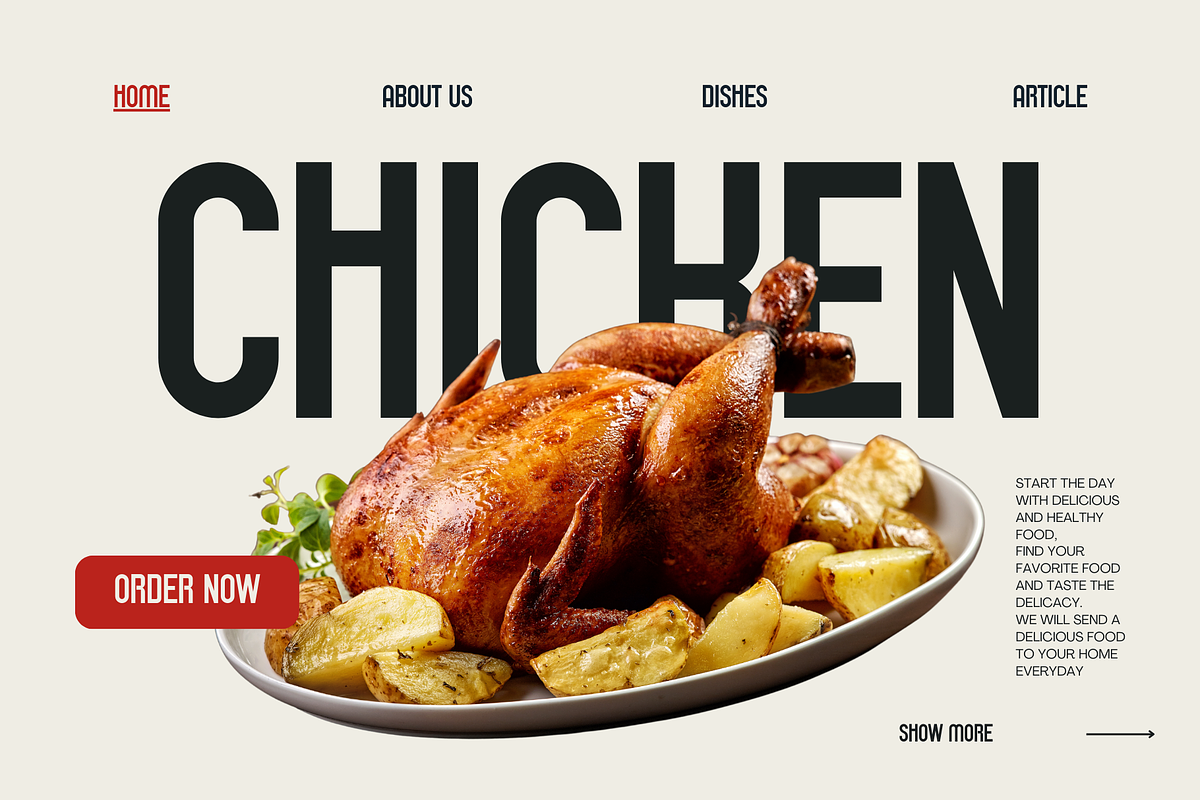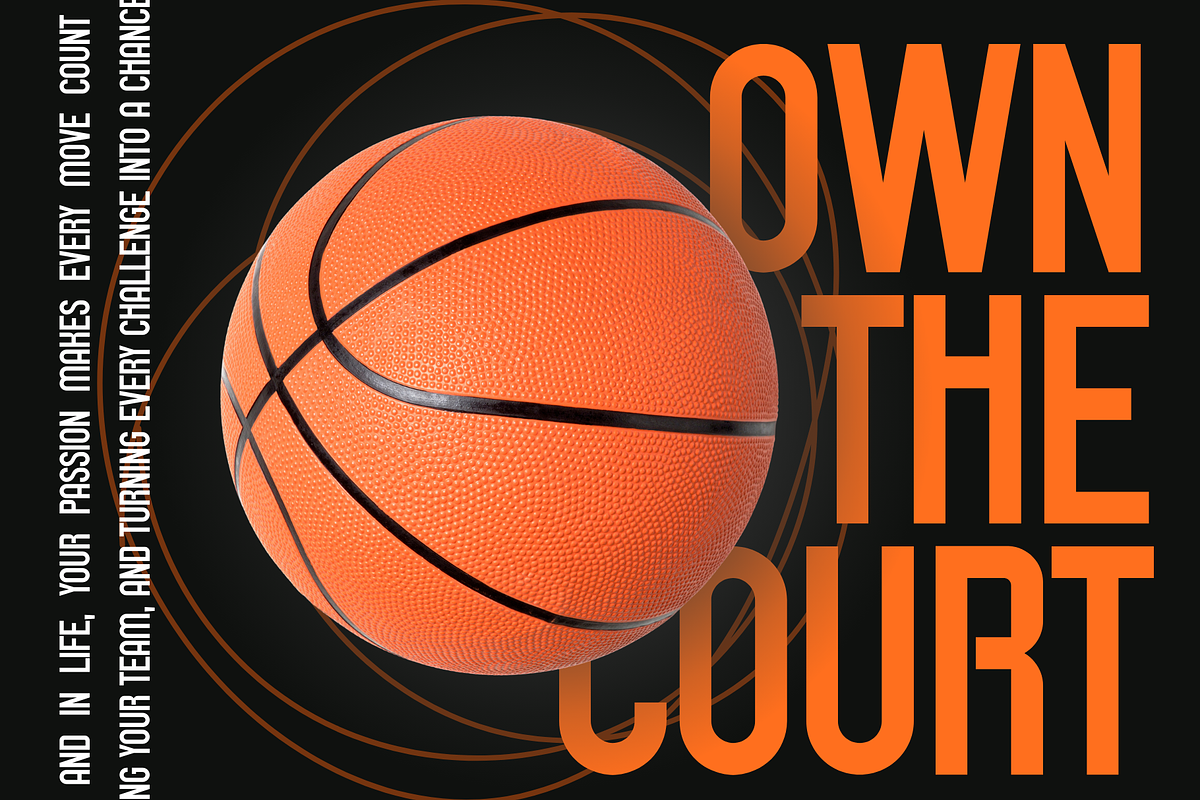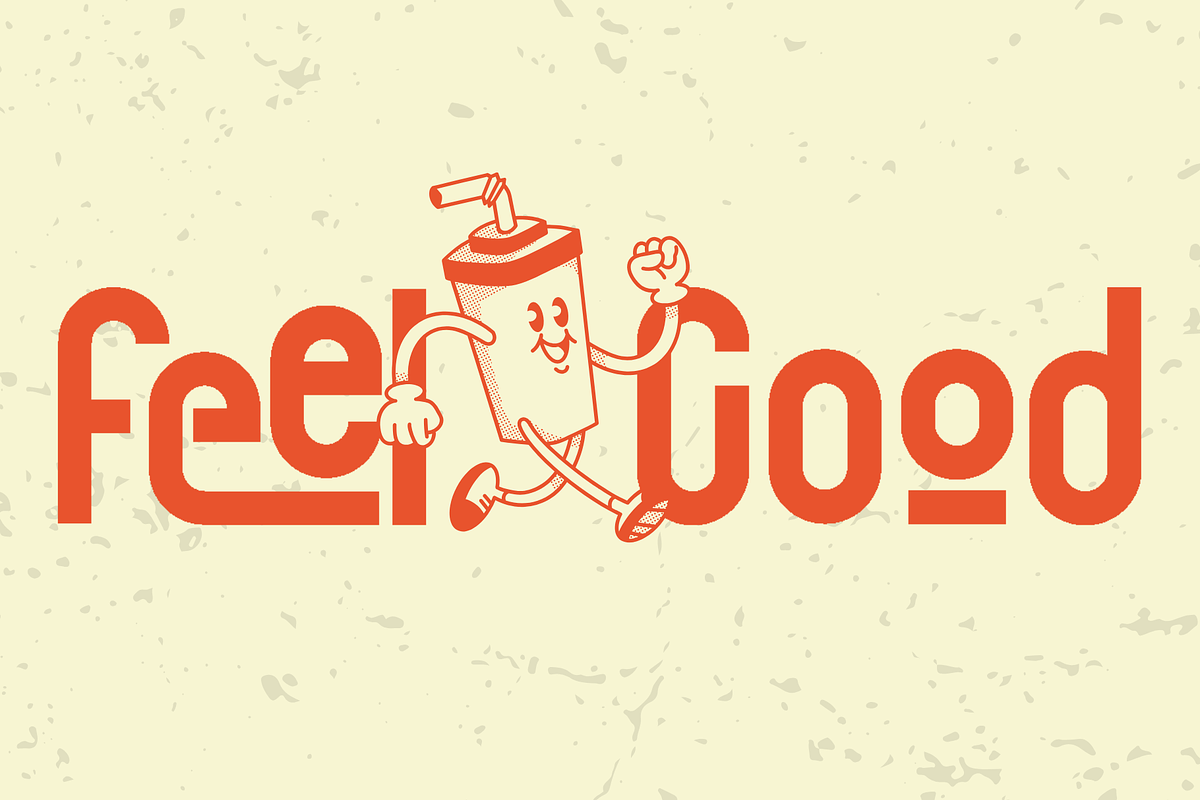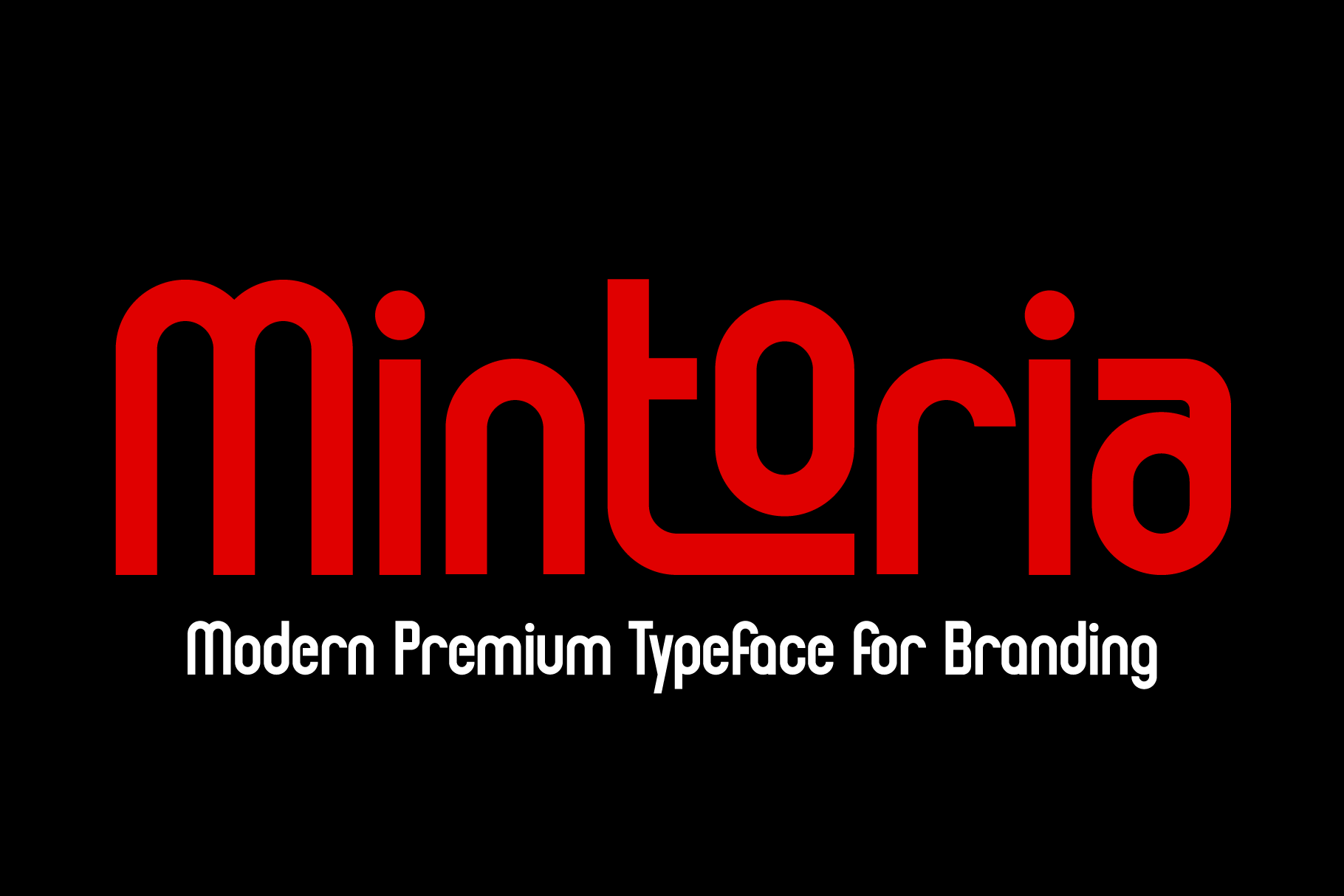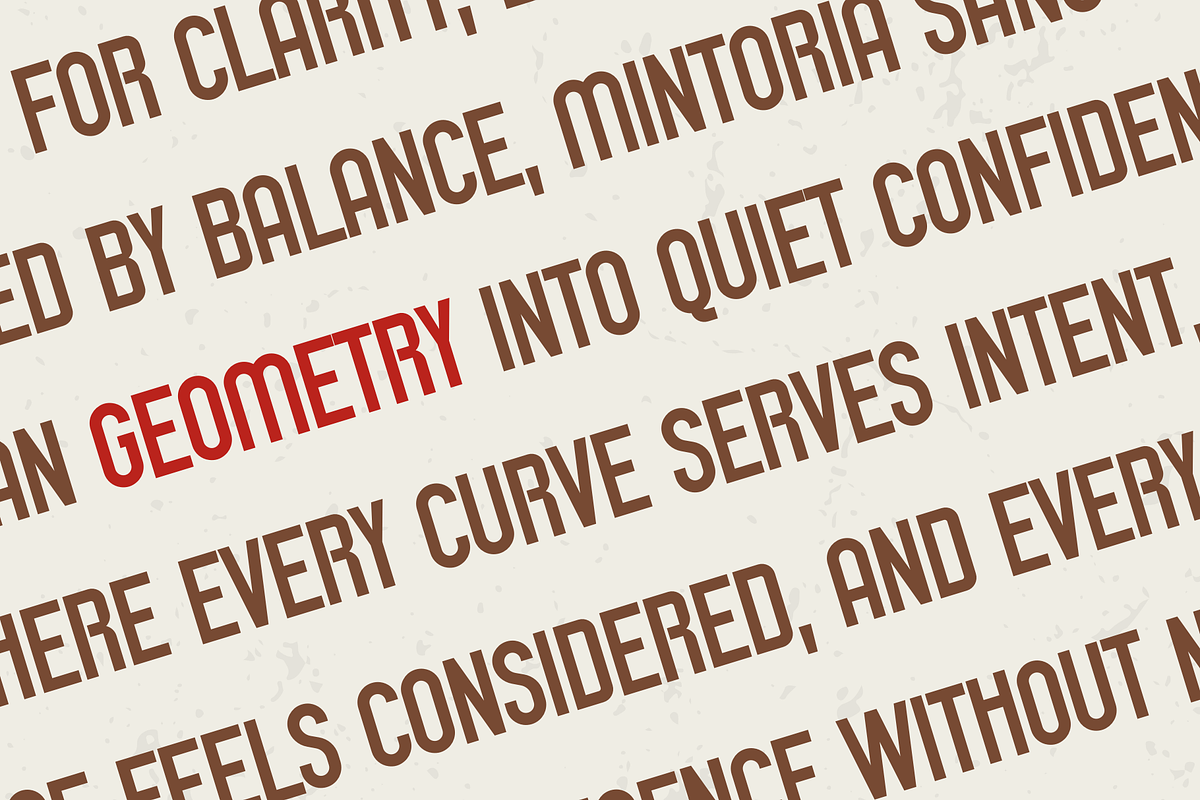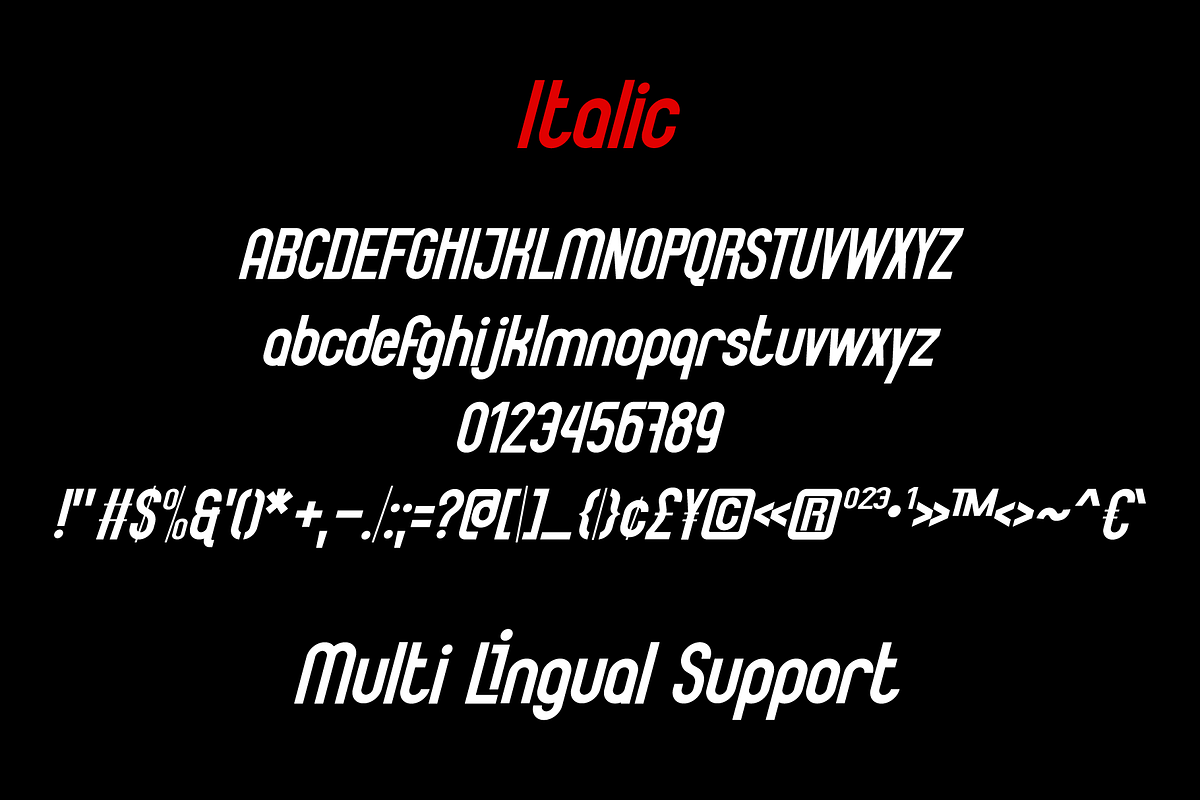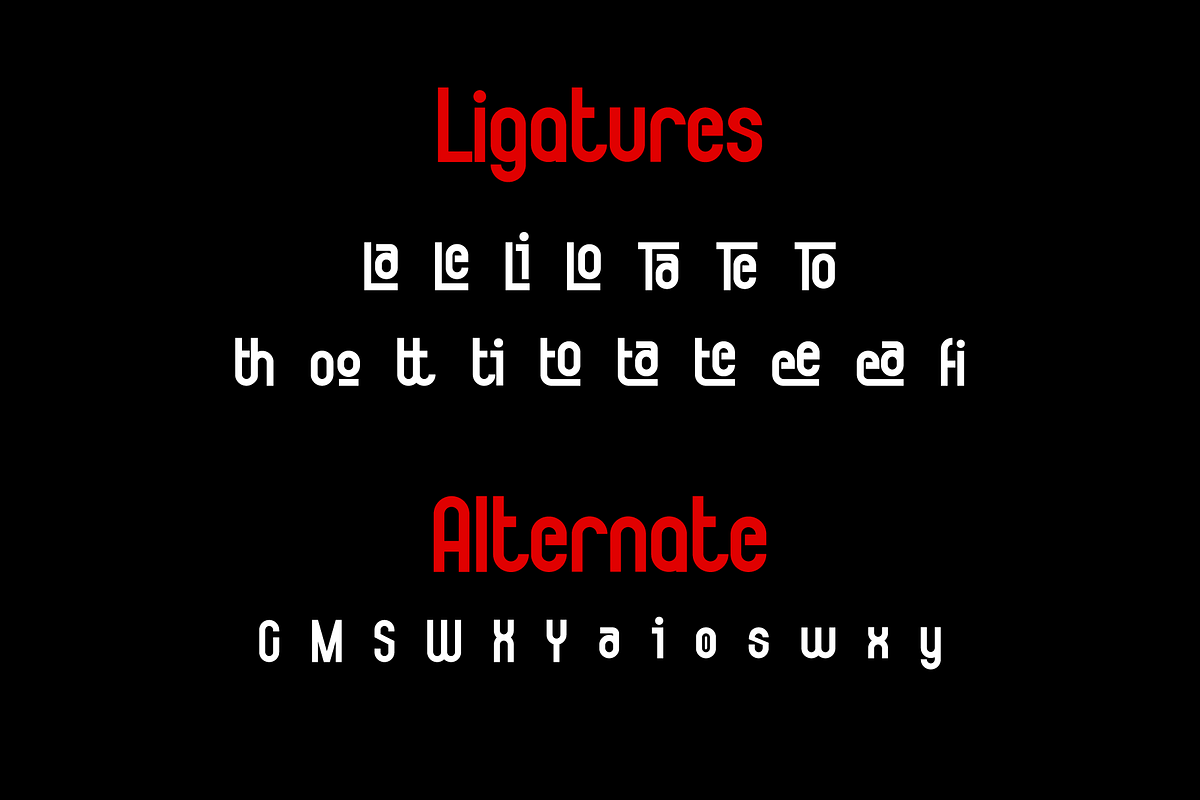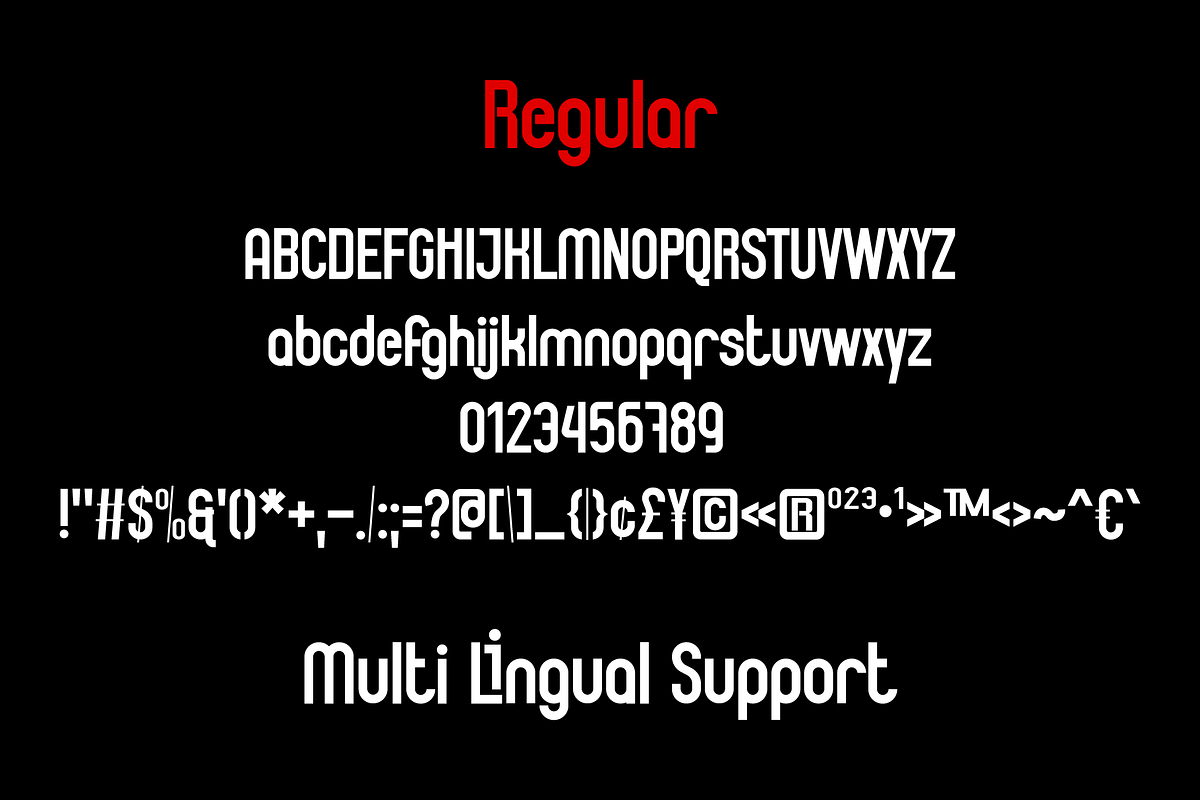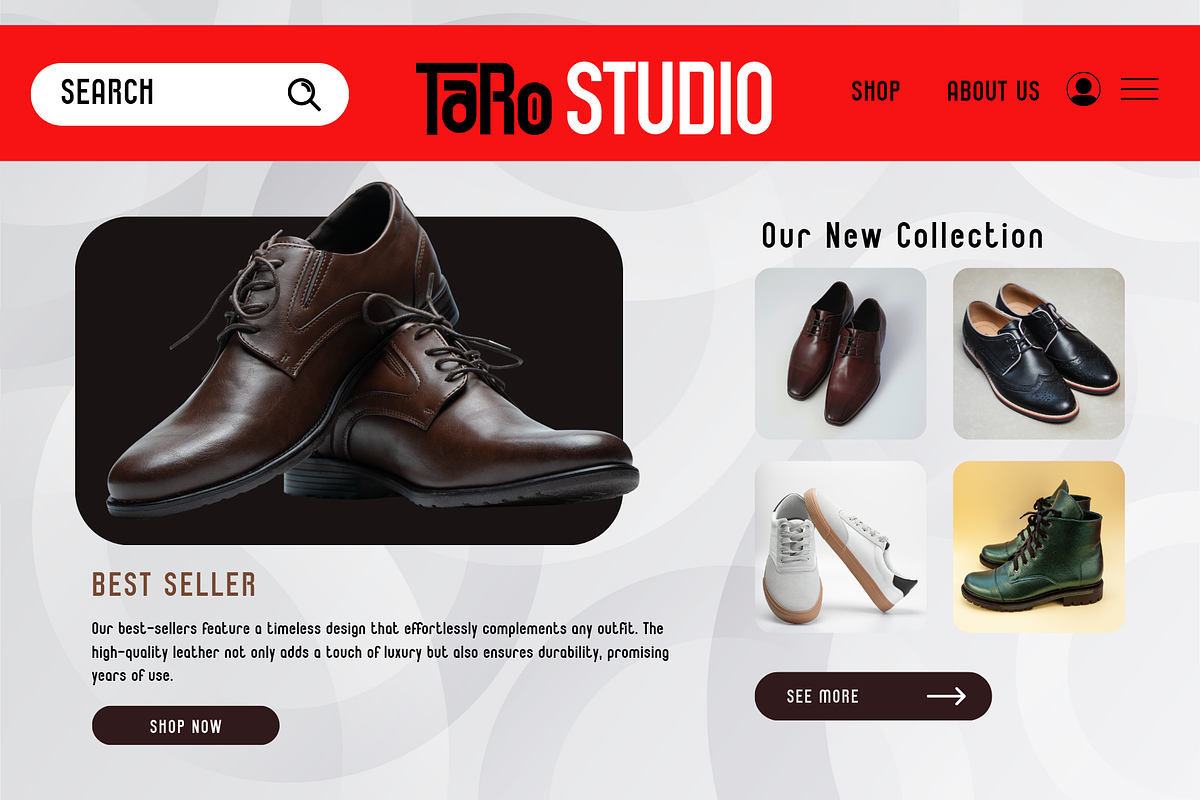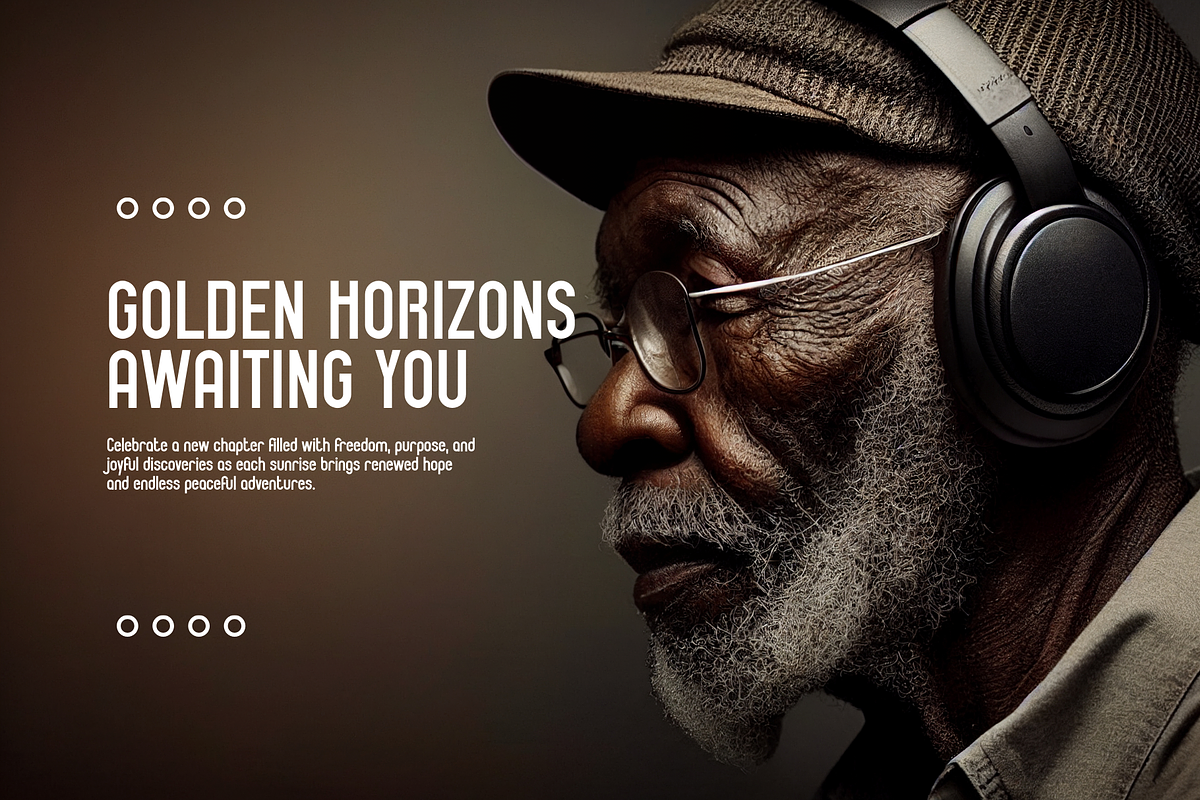
Mintoria is a modern sans serif font
Mintoria is a modern sans serif crafted for clarity and confident branding. Designed as a seamless duo: Regular for structure, Italic for purposeful emphasis. Optimized for logos, headlines, posters, and digital content. Includes standard ligatures and professional spacing. Commercial-use ready.